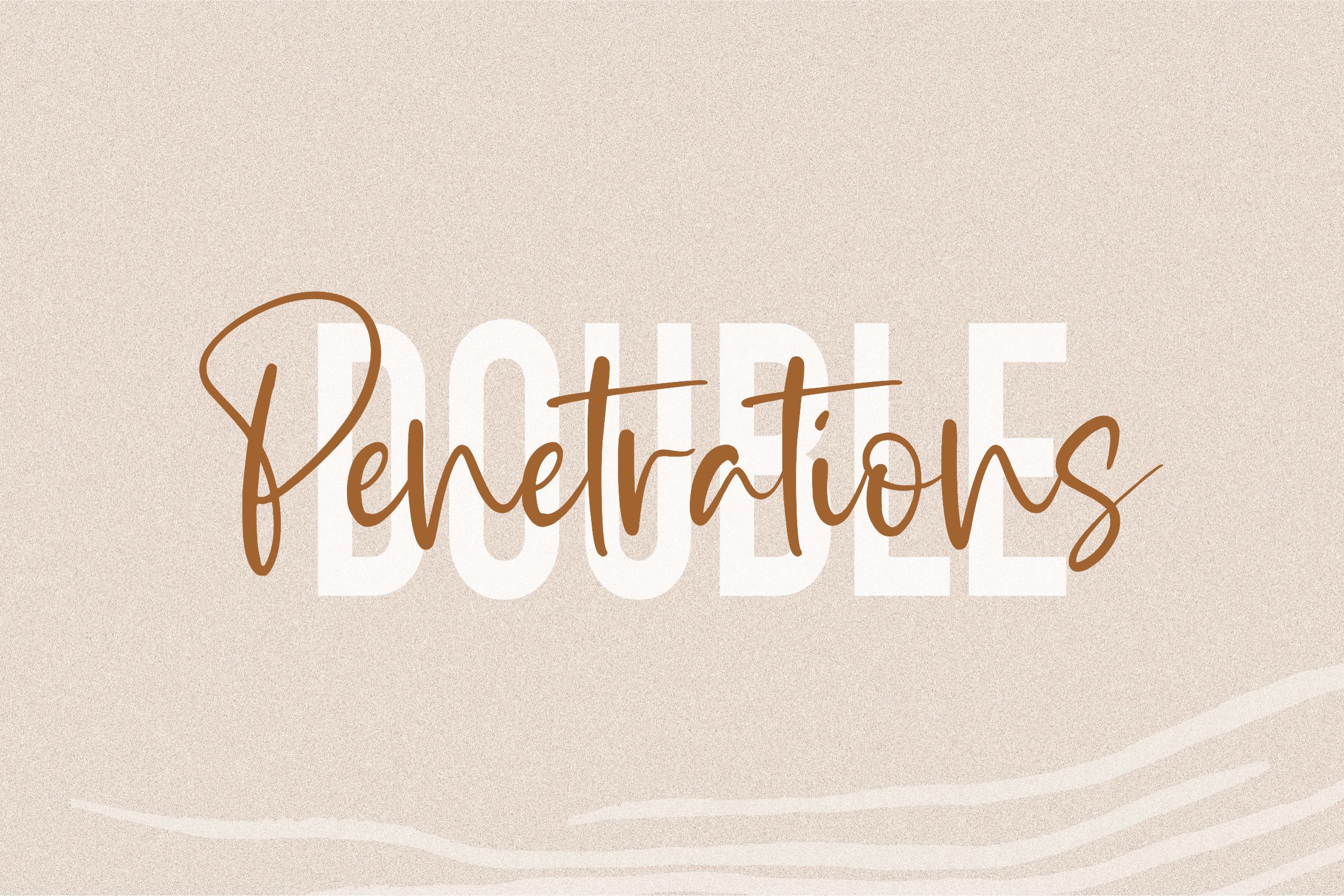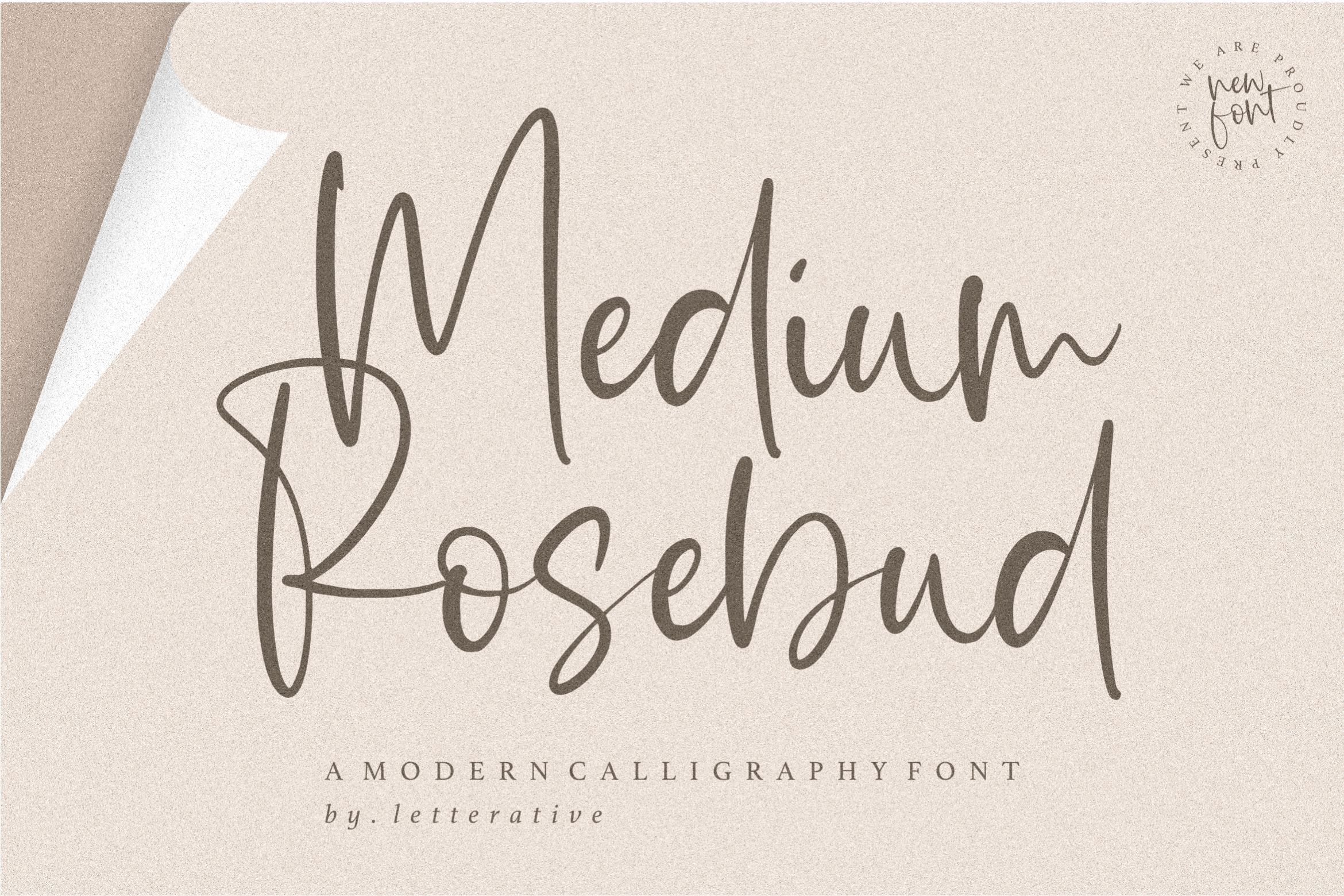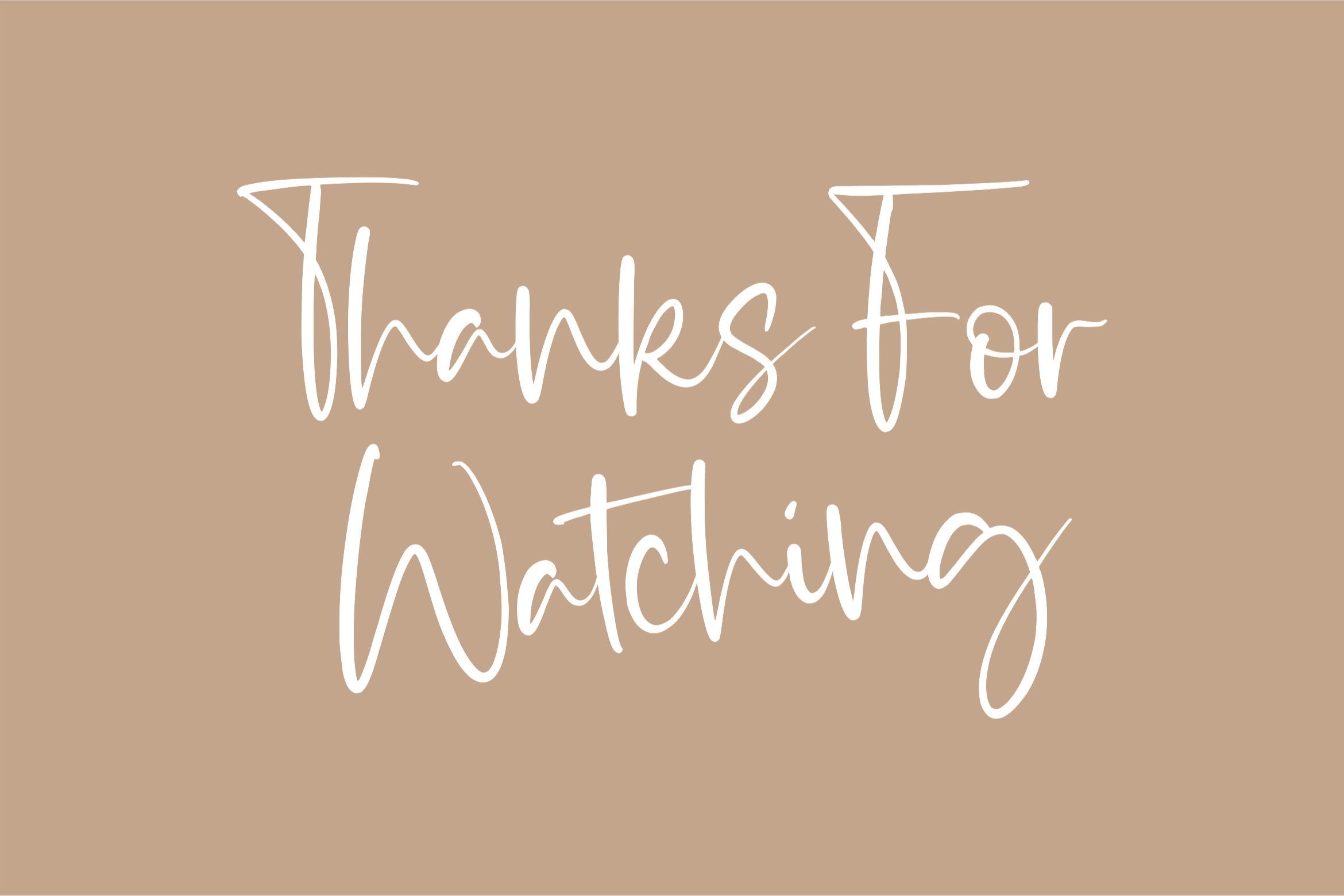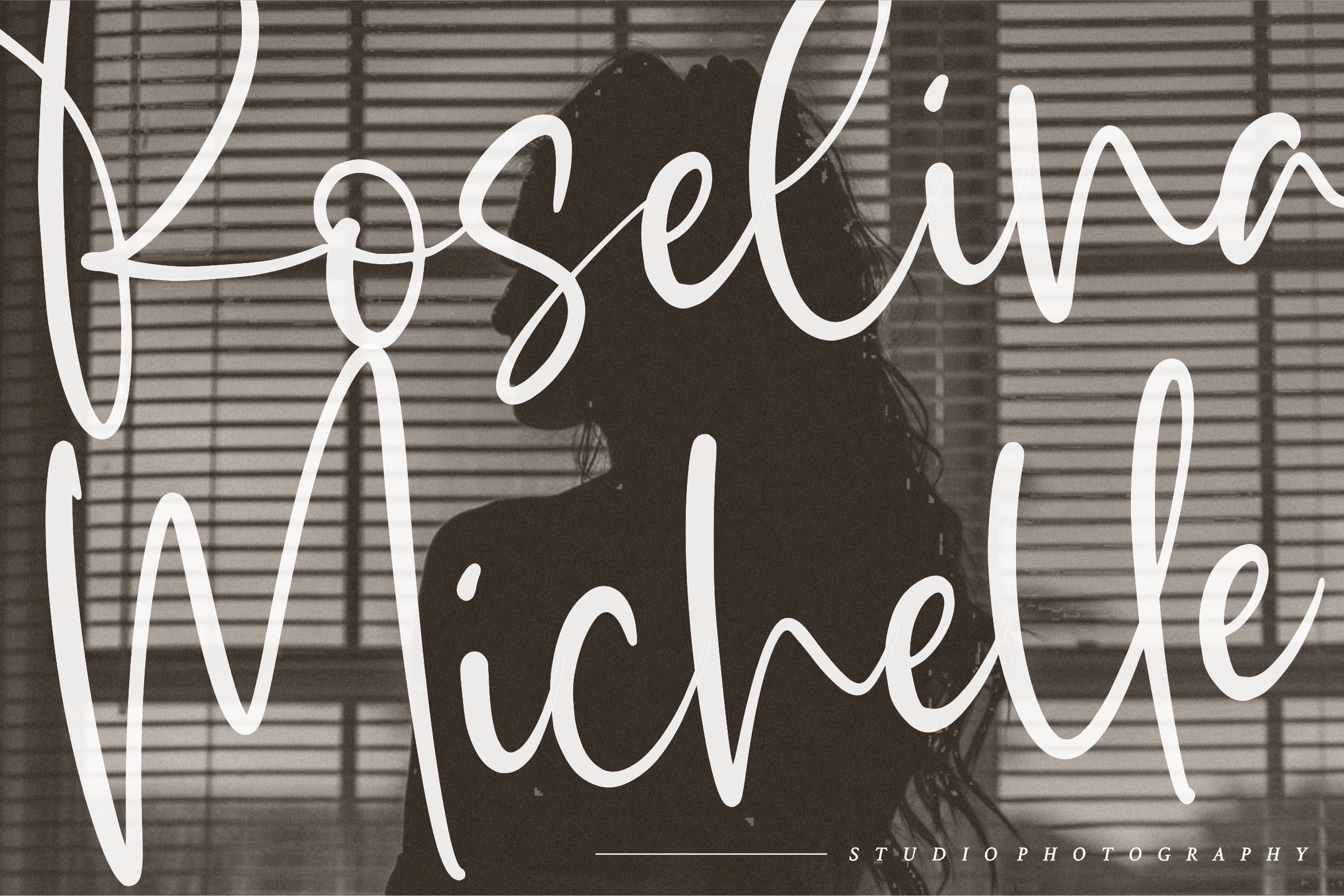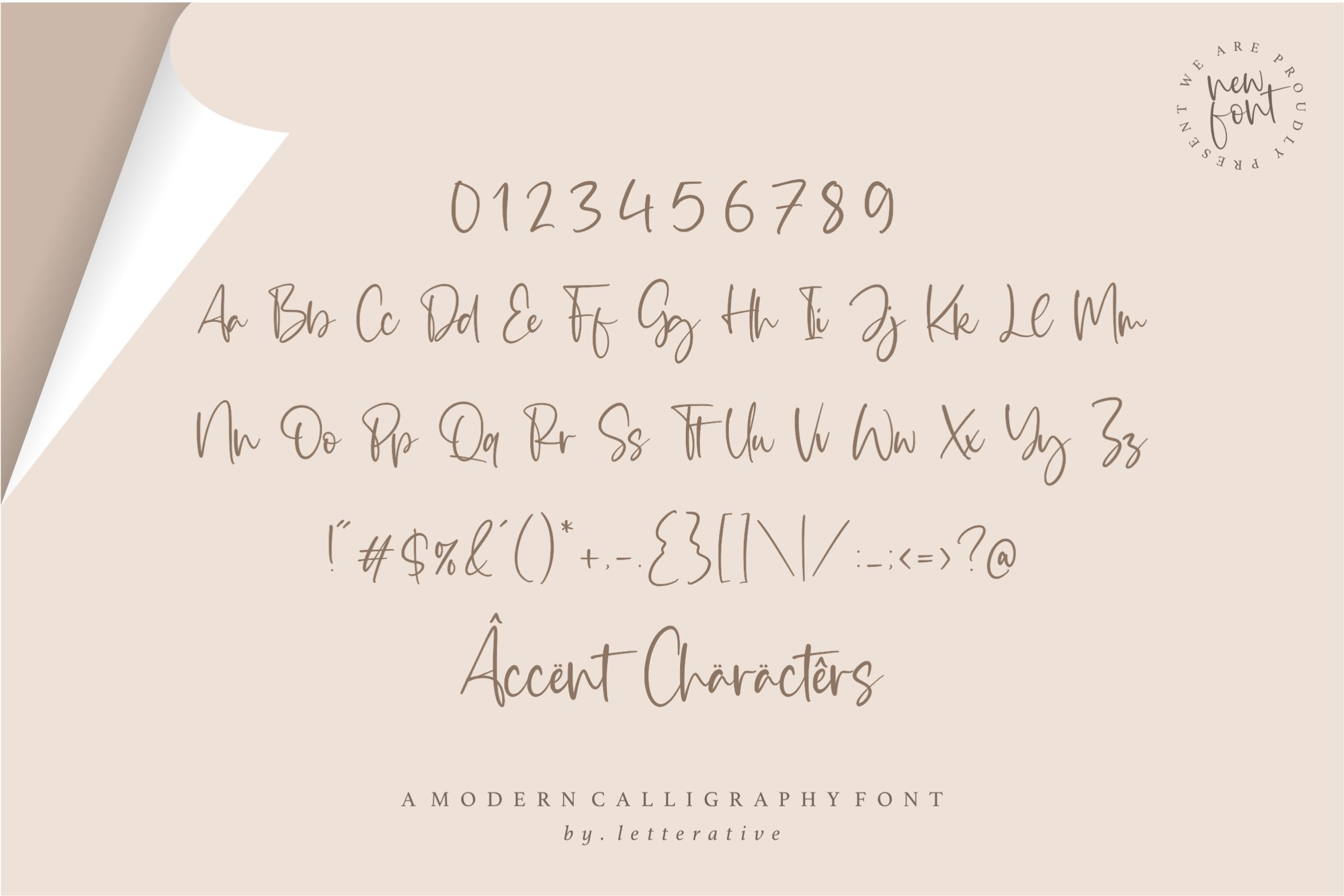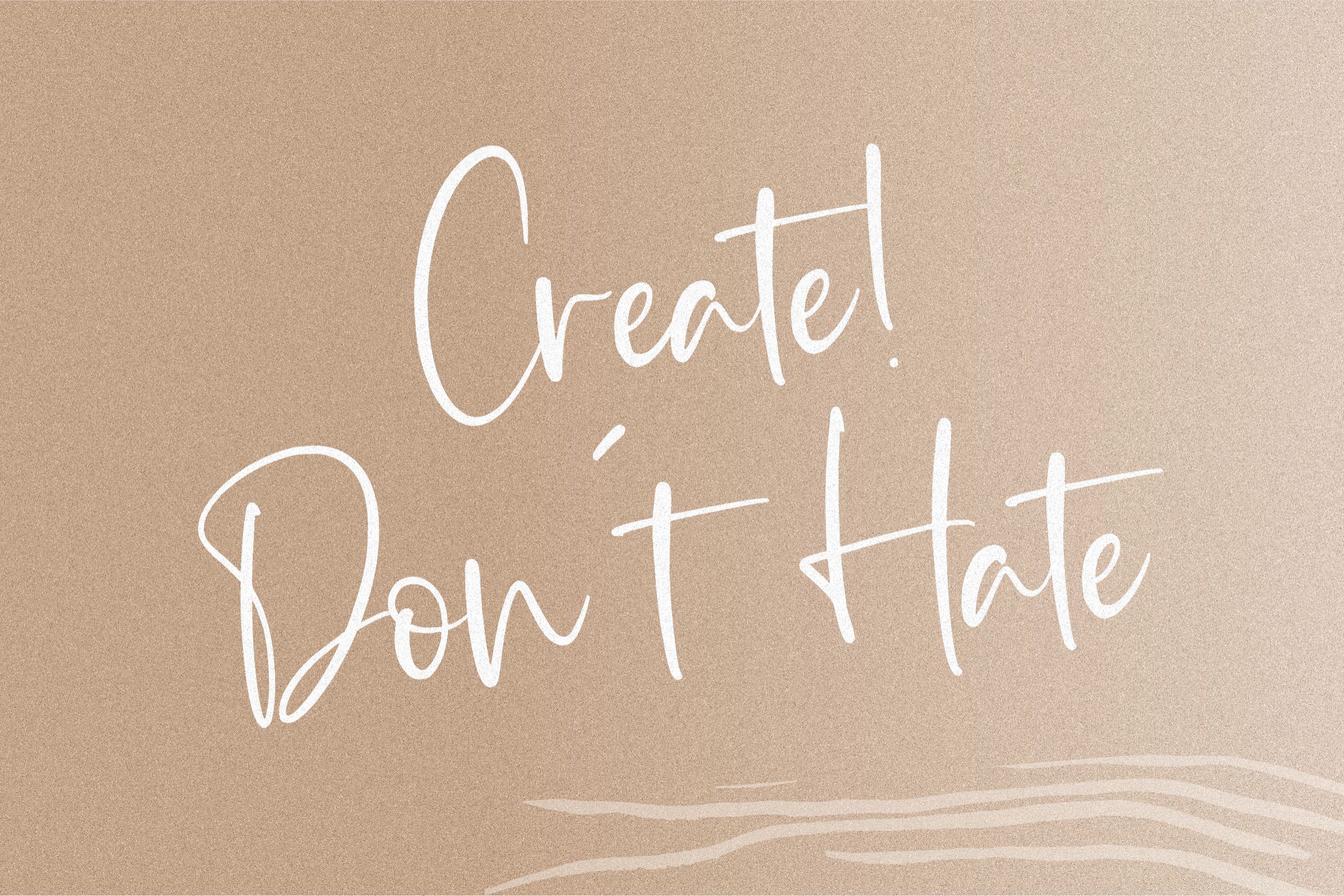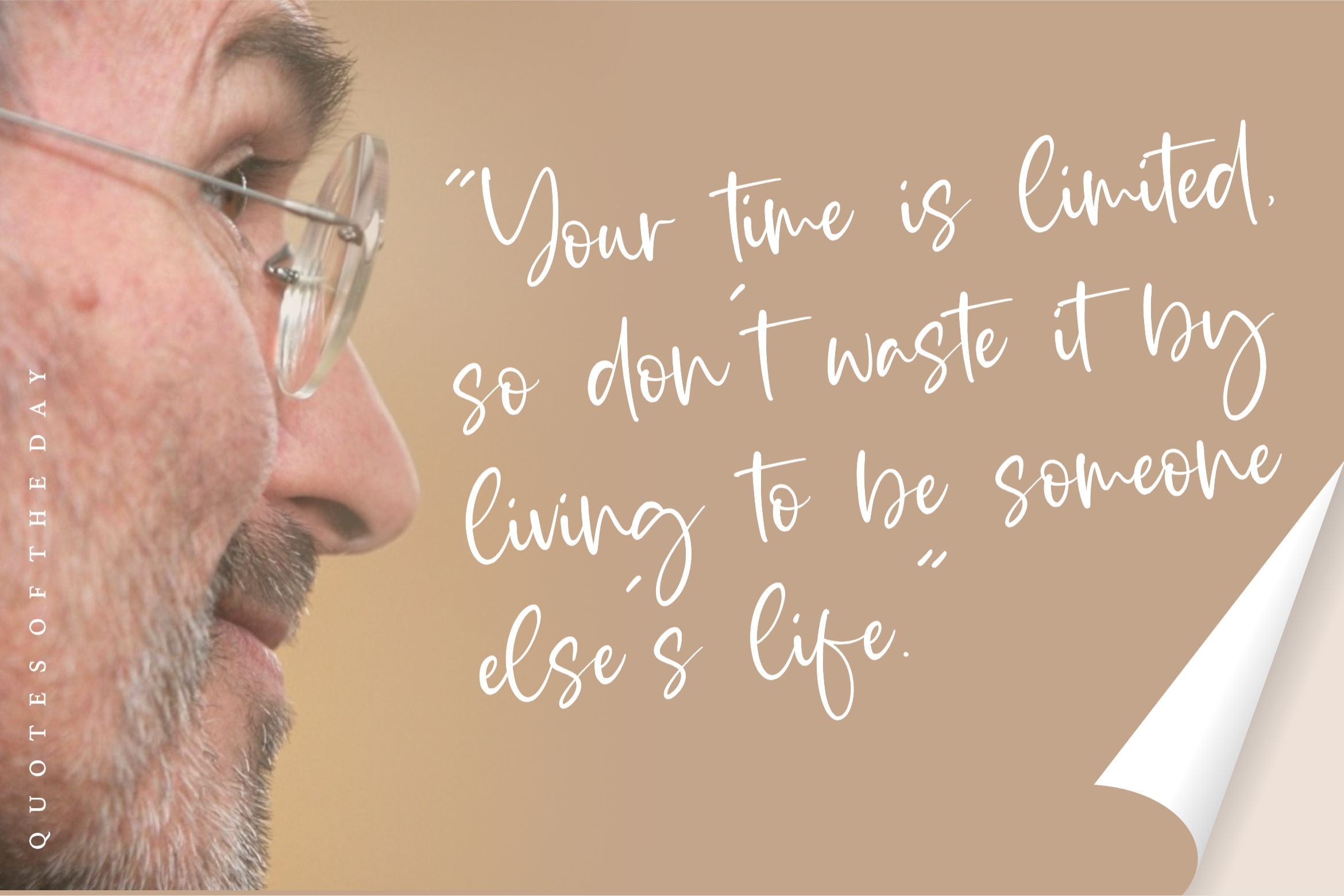
Medium Rosebud Modern Calligraphy Font
Introducing by Letterative Studio : Medium Rosebud Font Medium Rosebud is a Modern Calligraphy Font Medium Rosebud is a lovely and distinct handwritten font. It is the ideal choice for creating eye catching logos, branding and quotes. Every letter has a unique and beautiful touch, which will make your design come alive! This font includes : TTF and OTF Medium Rosebud also multilingual support Enjoy the font! Feel free to comment or feedback Send me PM or email Thank you!